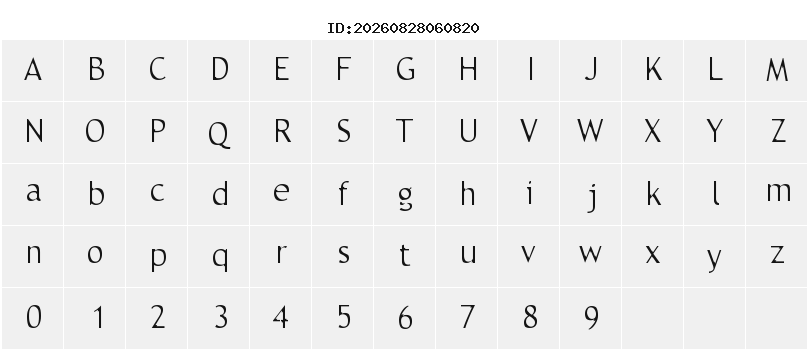
Trebble Preview
• Font Name: Trebble
• Full Font Name: Trebble
• Version: 1999; 1.1
About Trebble.ttf
Trebble.ttf is a modern, elegant sans-serif font designed for ultimate readability and visual harmony. Perfect for branding, headlines, web design, and print materials.